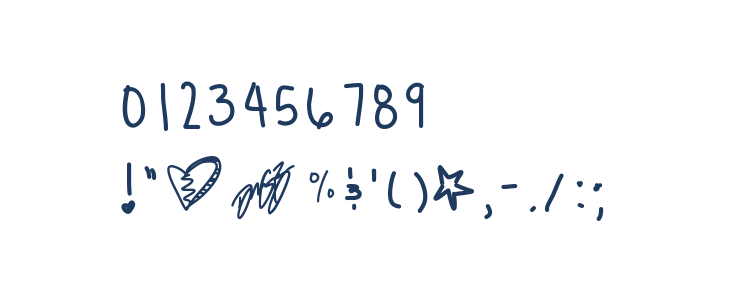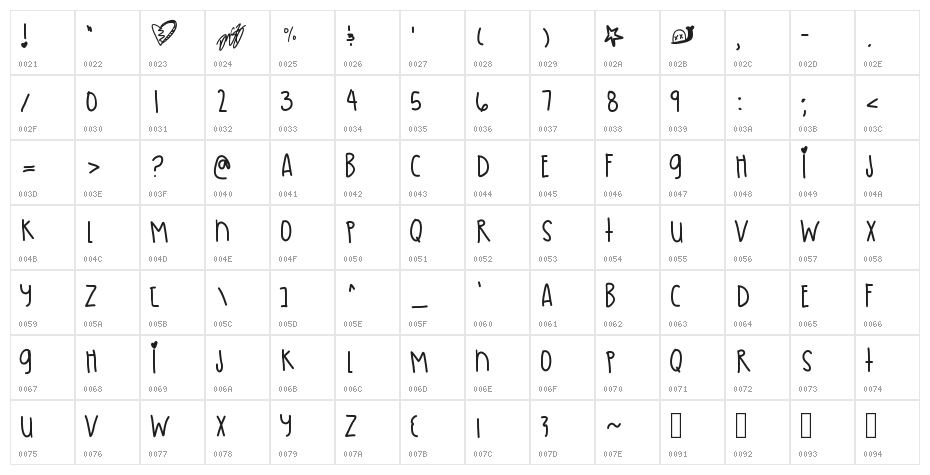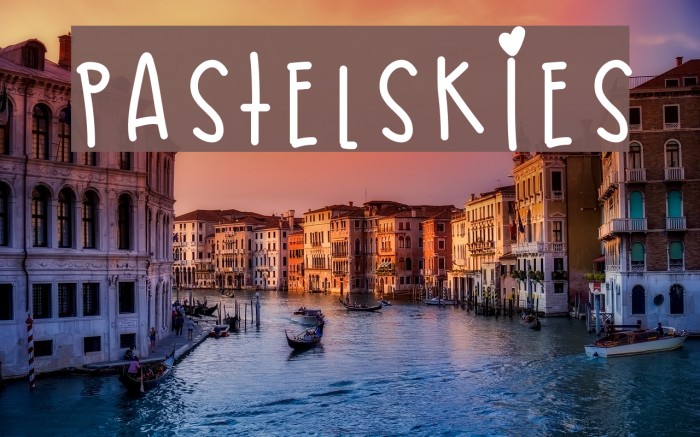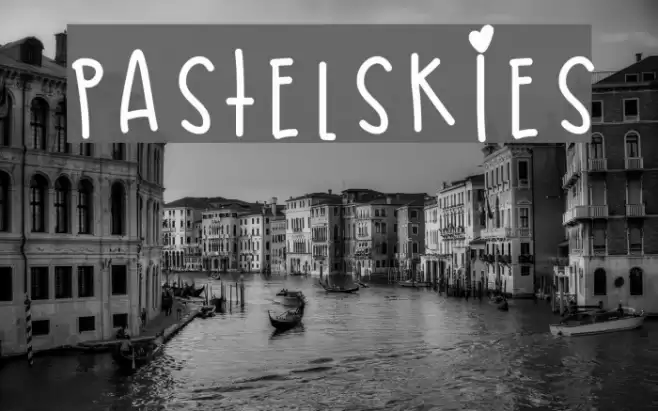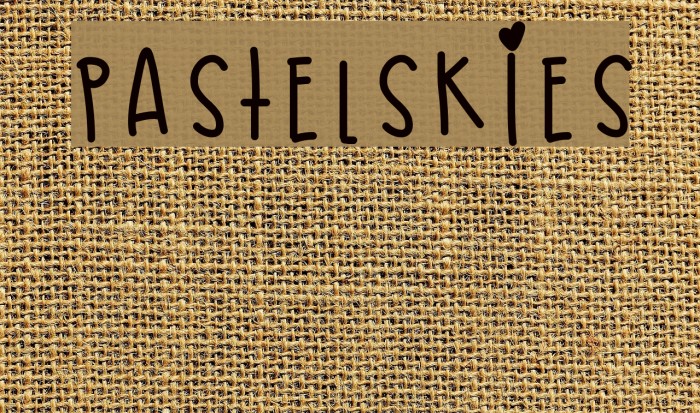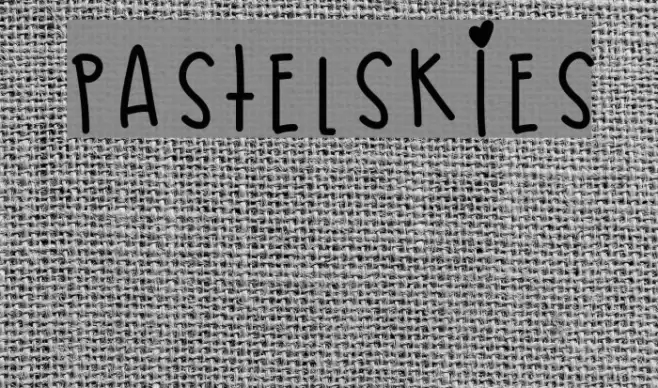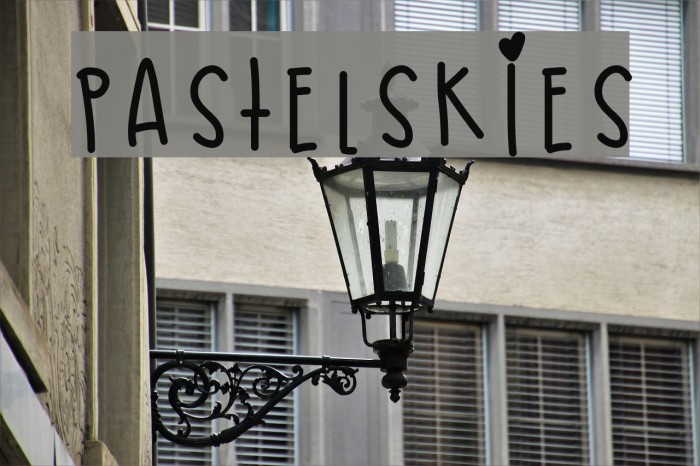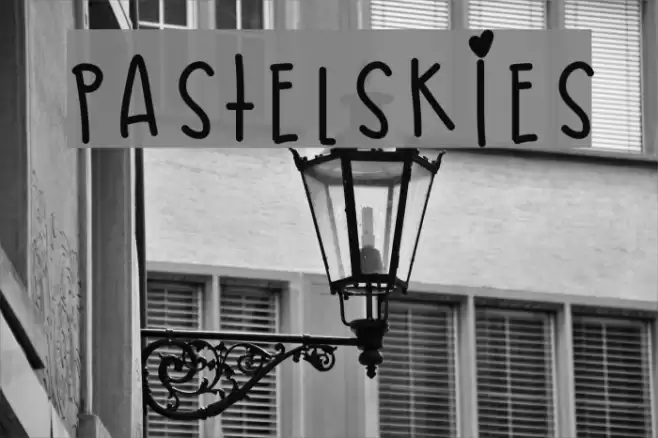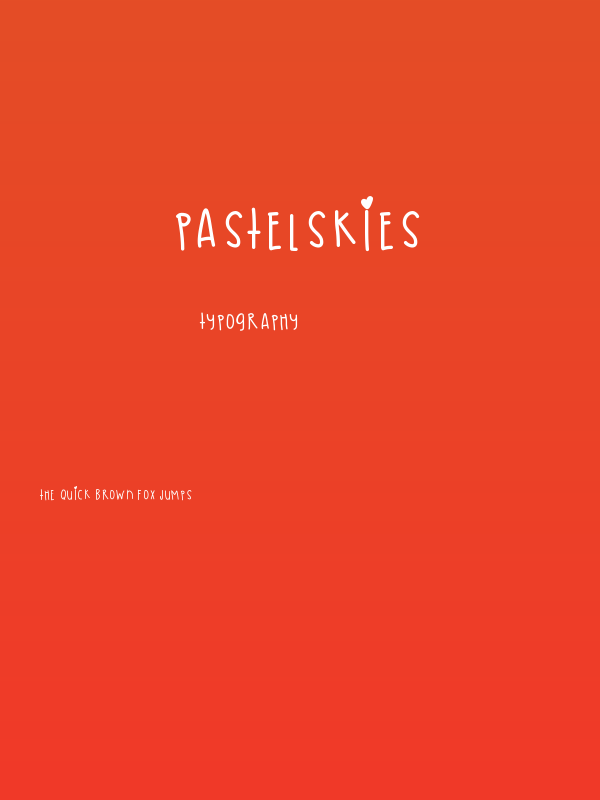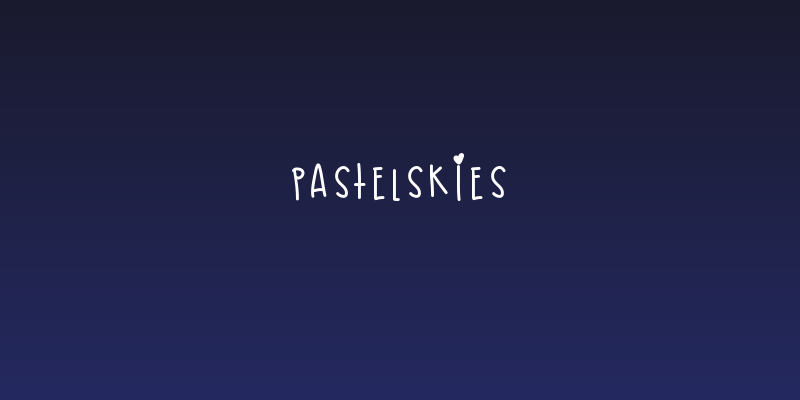
PastelSkies Font
PastelSkies Description
This playful and whimsical font features a handwritten style with a charming, casual feel. The letters are slightly irregular, adding a personal touch that mimics natural handwriting. The strokes are smooth and rounded, with a consistent medium weight that maintains readability. The font includes unique decorative elements, such as small hearts integrated into some of the characters, enhancing its playful nature. It is well-suited for creative projects that require a friendly and approachable aesthetic. The spacing between characters is normal, ensuring clarity and legibility.
| Proposed Projects | Ideal for greeting cards, children's books, playful branding, and social media graphics. |